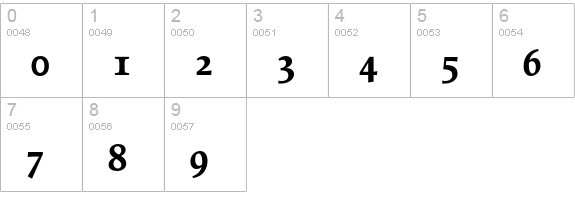
Proforma-Bold is a strong, high-contrast variant in the Proforma typeface family \xE2\x80\x94 well suited to headlines, attention-grabbing titles, and strong calls-to-action.
Proforma-Bold is a striking and bold font that commands attention with its strong and confident presence. Its sleek and modern design makes it perfect for headlines, titles, and other attention-grabbing text. The sharp edges and clean lines of Proforma-Bold give it a contemporary feel that is both professional and stylish. What sets Proforma-Bold apart is that it is not only visually impactful but also easily accessible. This font is available for free download at FontsMarket.com, making it a convenient choice for designers, creatives, and anyone looking to add a touch of sophistication to their projects without breaking the bank. Whether you're working on branding, advertising, or any other design project that requires a bold and eye-catching font, Proforma-Bold is sure to make a statement. Download it today and elevate your designs with this versatile and modern typeface.